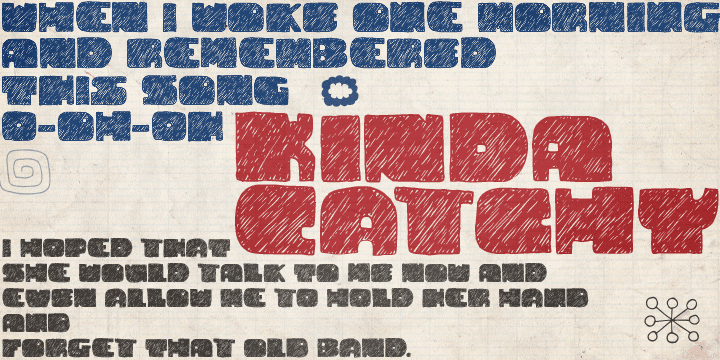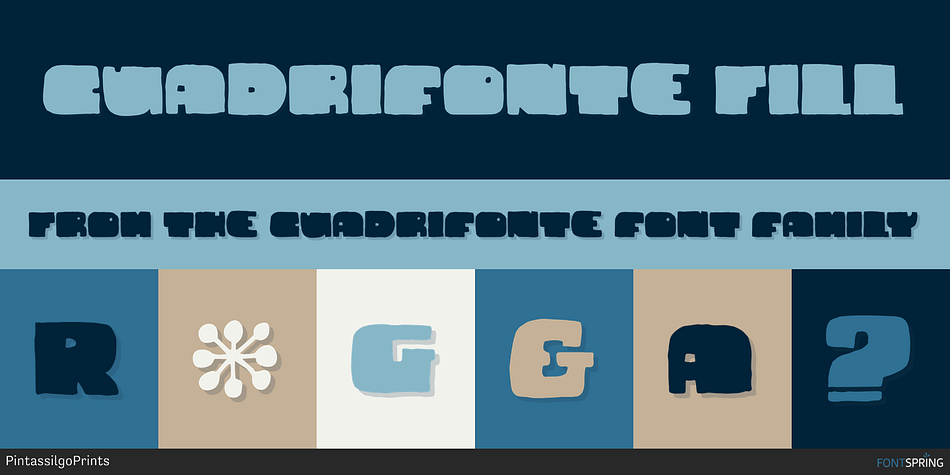
Cuadrifonte Fill
Cuadrifonte is a multiple classification font family. This typeface has four styles and was published by PintassilgoPrints.
Cuadrifonte was freely inspired by the lettering from a 1917 poster - the only recorded poster designed by the architect and furniture designer Gerrit Rietveld.
Cuadrifonte was freely inspired by the lettering from a 1917 poster - the only recorded poster designed by the architect and furniture designer Gerrit Rietveld. It is a hand-drawn bold and boxy typeface, available in 3 handcrafted styles.
The family also counts with a cool picture font, loaded with illustrations that matches the typeface look and feel.